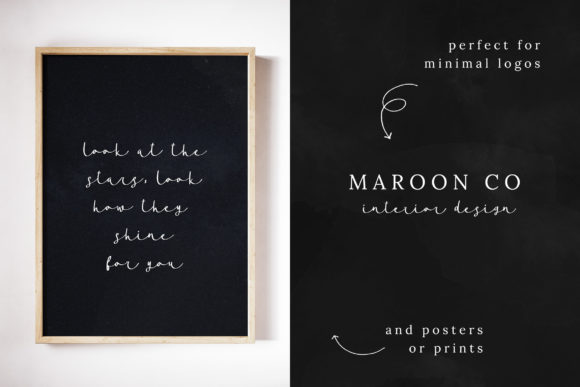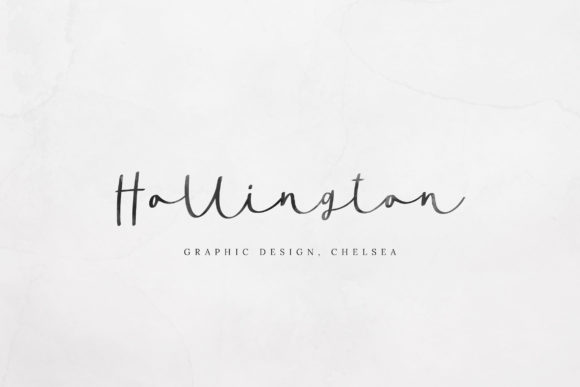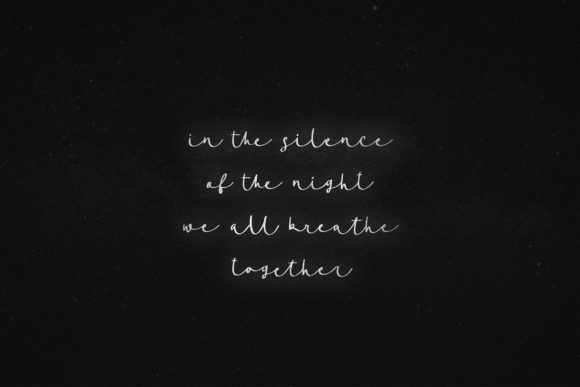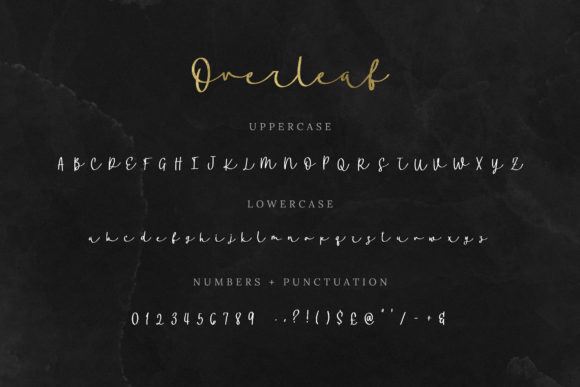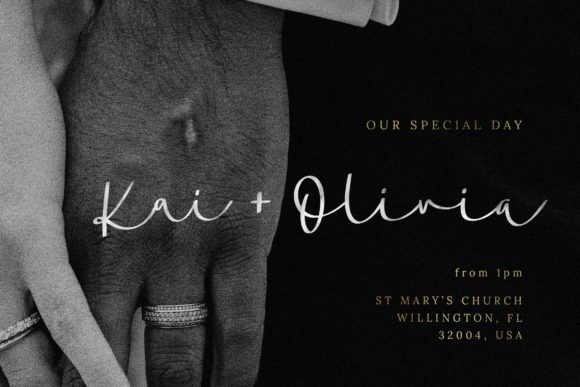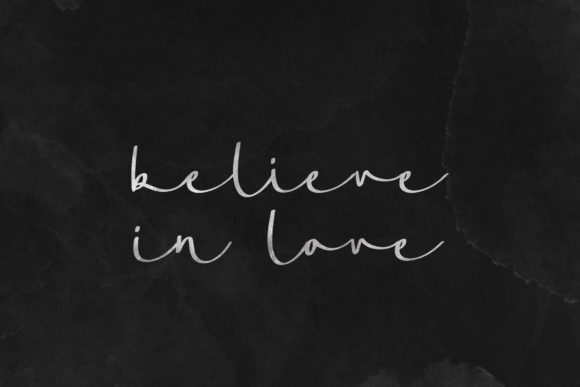
Overleaf Script Font
About Overleaf Script Font
Overleaf Script is a thin lettered and graceful script font. Fall for its ravishing style and use it to create gorgeous wedding invitations, beautiful stationary art, eye-catching social media posts, and much more!